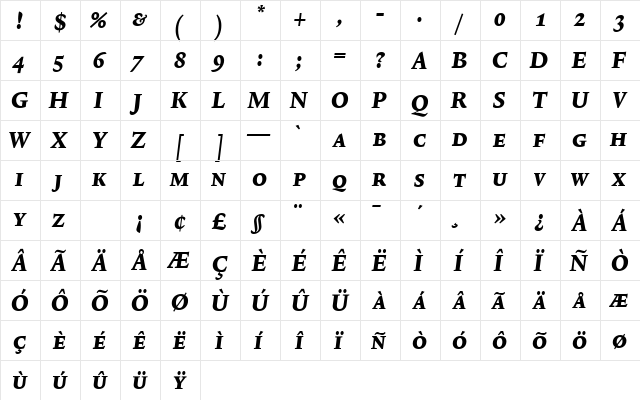
Lexicon No2 Italic E Exp Font Preview
Lexicon No2 Italic E Exp
Lexicon No2 Italic E Exp Font Details
| Style | Italic E Exp |
Design Context for Lexicon No2 Typeface
Lexicon No2 takes a measured approach to typography — its balanced proportions and neutral character make it a reliable workhorse for both digital and print work. The dynamic lean of this cut emphasises speed and emphasis in any layout.